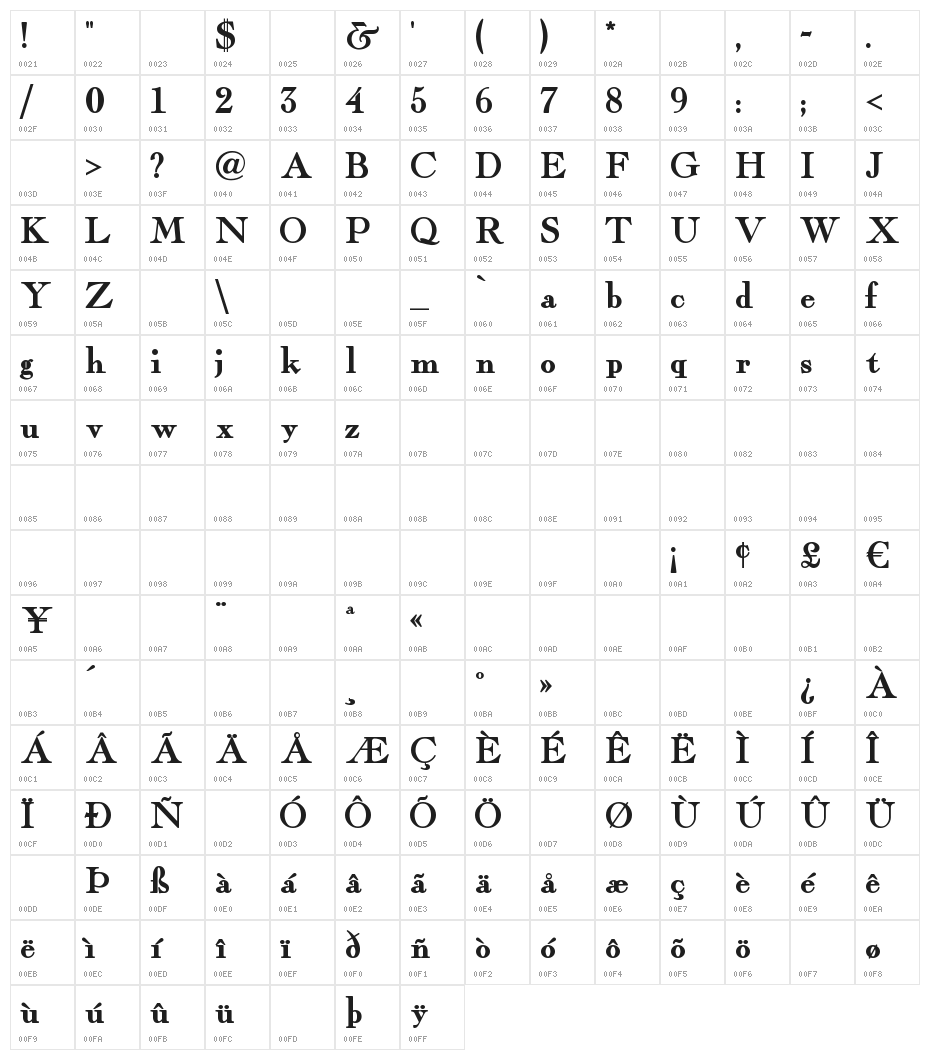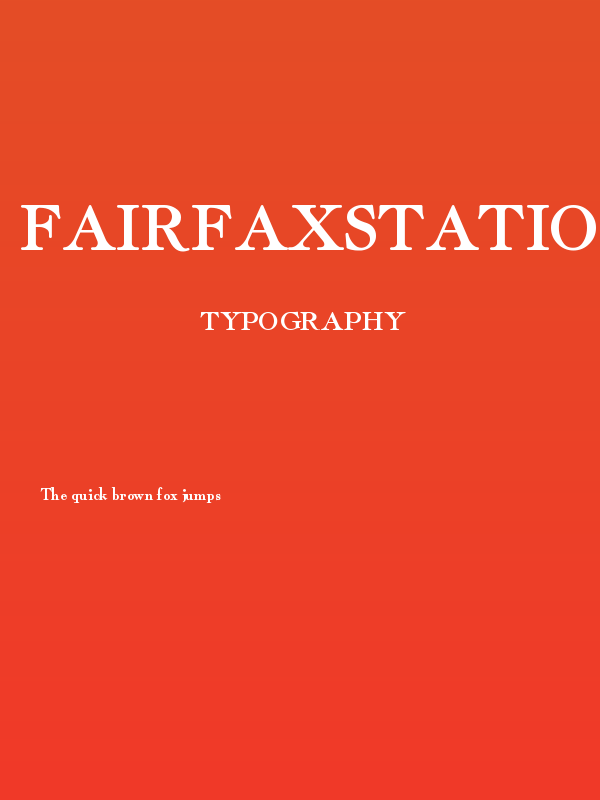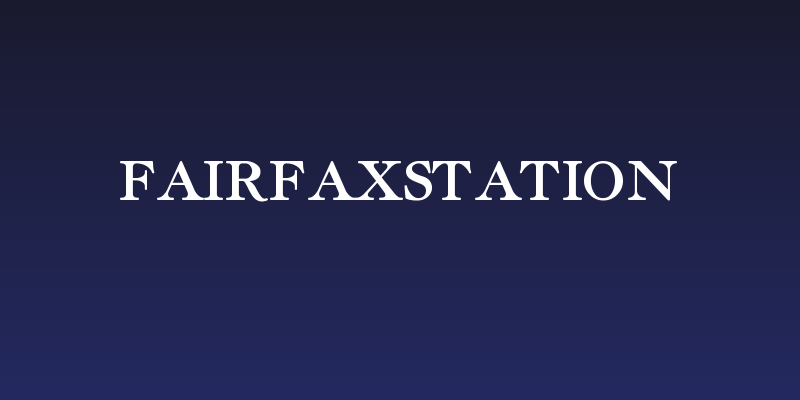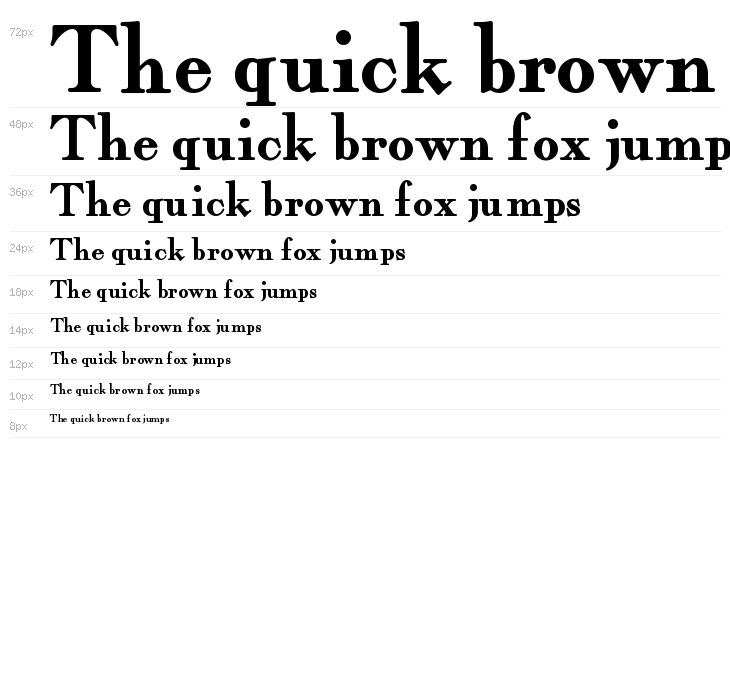
FairfaxStation Font
FairfaxStation Description
This font features a classic serif style with strong, bold strokes and high contrast between thick and thin lines. The serifs are pronounced and add a touch of elegance and tradition to the overall appearance. The uppercase letters are well-proportioned, while the lowercase letters maintain a consistent height and spacing, ensuring readability. The numerals are clear and distinct, with a traditional design that complements the letterforms. Special characters are included, maintaining the same stylistic features as the alphabet. This font is versatile, suitable for both formal and creative applications.
| Proposed Projects | Perfect for book covers, editorial design, branding, and formal invitations. |